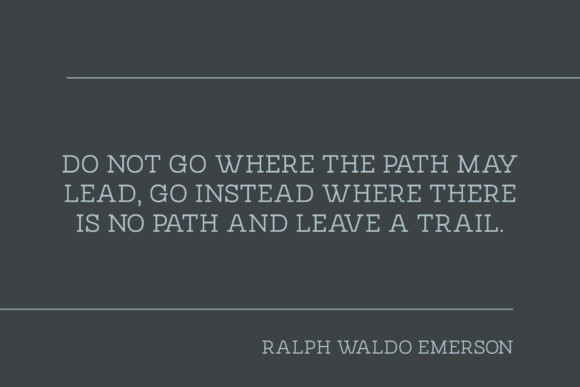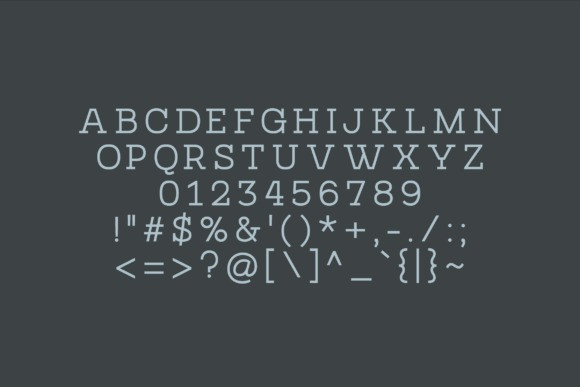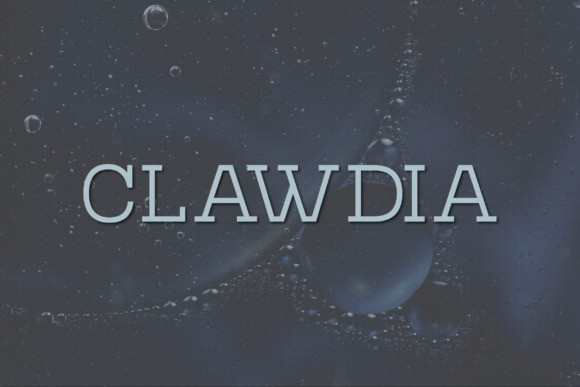
Clawdia Font
Clawdia Font, a modern, classy slab serif typeface. A slab serif typeface that contains upper characters, number 0-9 and a range of punctuation and symbols. An extremely versatile font, perfect for logos, weddings, invitations, quotes, advertisements, print, magazines, and more!